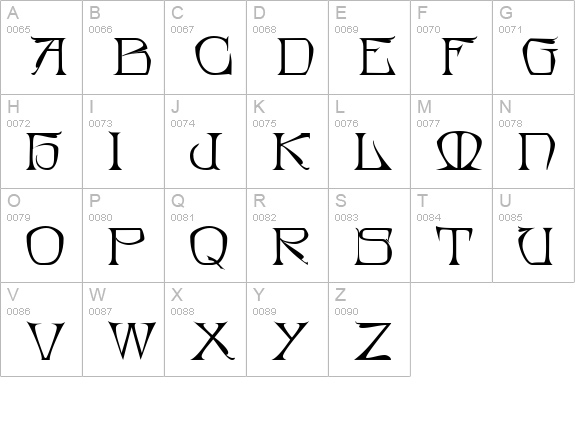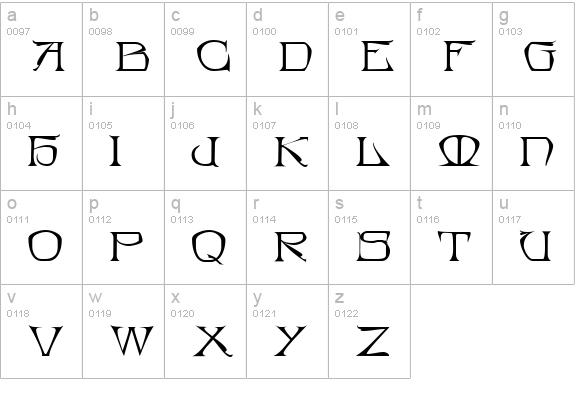
Bedegraineâ„¢ Font Details
Bedegraine™ font is a timeless and elegant typeface that exudes sophistication and style. With its classic yet modern design, this font is perfect for a wide range of design projects, from invitations to branding to packaging. The graceful curves and clean lines of Bedegraine™ font make it a versatile choice for both print and digital applications. Whether you're creating a wedding invitation or designing a logo for a high-end brand, this font will add a touch of class to any project. And the best part? Bedegraine™ font is completely free to download at FontsMarket.com. That's right, you can access this stunning font at no cost, making it accessible to designers and creatives of all levels. So why wait? Download Bedegraine™ font today and elevate your designs with its timeless beauty and sophistication.